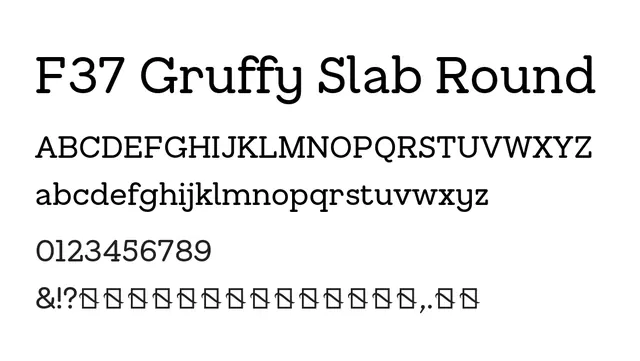
F37 Gruffy Slab
F37 Gruffy Slab, modern, confident
A contemporary slab serif with geometric structure and confident letterforms, blending editorial credibility with modern aesthetic.
Gruffy Slab works as both headline and body font in editorial design, publishing, and corporate contexts. Its large x-height and open structure maintain readability while its serif presence adds substance and editorial authority to contemporary layouts.
Pair with F37 Grotesc for modern contrast, or use F37 Gruffy Rounded as a complementary sans for friendly yet structured hierarchy.